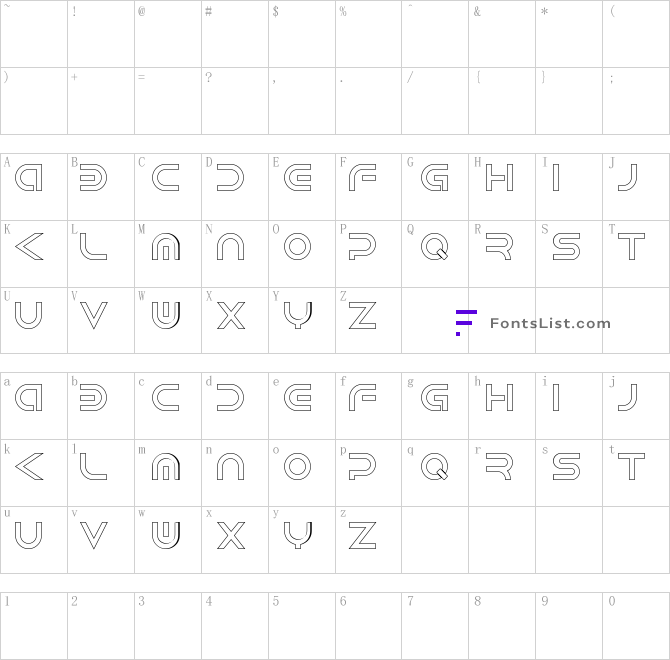
- Font Name:Android Hollow
Android-Hollow.ttf is a very beautiful artistic font, Android-Hollow.ttf is widely used in the design and printing of various books and pictures,Android-Hollow.ttf has a strong visual impact,Android-Hollow.ttf is a commonly used font in newspapers, magazines and books, and is used in posters, e-commerce Poster design, store design, logo design, font design and other fields.Android-Hollow.